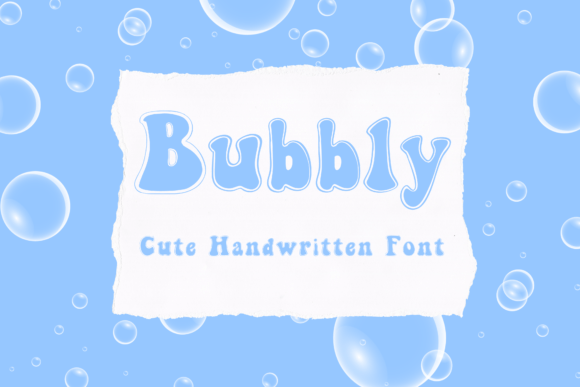
Unleash Your Creativity with Bubbly Font
There’s nothing quite like the feeling of getting lost in a creative project, surrounded by colorful pens, sticky notes, and a dash of inspiration. It’s moments like these that remind us why we love designing in the first place – the thrill of bringing a new idea to life, the satisfaction of seeing it take shape, and the joy of sharing it with others.
For those of us who love crafting unique digital experiences, Bubbly Font is a game-changer. This charming handwritten font is perfect for social media posts, digital planners, and even branding projects. Its playful, whimsical feel makes it an instant favorite among designers looking to add a touch of personality to their work.
Bubbly Font Key Features
- Font Style: Bubbly Font is a unique, hand-drawn font with a playful and whimsical feel, perfect for adding a touch of personality to designs.
- Character Set: Includes a comprehensive set of characters, including uppercase and lowercase letters, numbers, and punctuation marks, making it suitable for a wide range of applications.
- Unique Characteristics: Features distinctive, rounded shapes and soft lines that give it a friendly and approachable feel, making it ideal for children’s books, magazines, and other publications targeting a young audience.
Bubbly Font Review
First off, I love the whimsical feel of Bubbly Font. ✨ It’s perfect for designs that need a playful touch. The font’s rounded edges and bubbly shapes make it an instant attention-grabber. I’ve used it for a few projects now, and it’s always a hit with clients who want something fun and eye-catching.
One thing I appreciate about Bubbly Font is its versatility. ✨ It comes in a range of weights and styles, from light to bold, and even a script version. This makes it easy to use in a variety of contexts, from headings and titles to body text and signage.
However, I do have a few caveats. ⚠️ The font can feel a bit over-the-top at times, which might not be suitable for all designs. Additionally, the script version can be a bit difficult to read at small sizes.
Here are some specific pros and cons:
- ✨ Whimsical feel that’s perfect for playful designs
- ✨ Versatile with a range of weights and styles
- ⚠️ Can feel over-the-top in some contexts
- ⚠️ Script version can be difficult to read at small sizes
Overall, I think Bubbly Font is a great choice for designers who want to add a touch of whimsy to their projects. Just be mindful of its limitations and use it judiciously to get the best results.
Bubbly Font: A Practical Application Guide
Getting Started with Bubbly Font
Platform-Specific Tips
Use the Bubbly Font to add a playful touch to your social media graphics, blog posts, or marketing materials.
Experiment with the Bubbly Font in combination with bold colors and geometric shapes to create eye-catching designs.
Enhance your presentations and documents with the Bubbly Font’s friendly and approachable feel.
The Bubbly Font is ideal for:
- Children’s educational materials
- Playful marketing campaigns
- Wedding invitations and decor
Tips for Getting the Most Out of Bubbly Font
To maximize the effectiveness of the Bubbly Font:
- Use it sparingly to avoid overwhelming the design.
- Pair it with complementary fonts for added visual interest.
- Experiment with different font sizes and styles to create visual hierarchy.
Alternatives to Bubbly Font
Great Vibes Font is a playful and elegant script font that works well for titles, headings, and short paragraphs. It is perfect for creating a whimsical and lively atmosphere in designs. Great Vibes Font has a more refined and sophisticated look compared to Bubbly Font, which is more casual and bubbly. Use it when you want to convey a sense of fun and adventure.
Crimson Text Font is a modern and elegant serif font that works well for body text, headings, and titles. It has a more classic and timeless look compared to Bubbly Font, which is more playful and trendy. Use Crimson Text Font when you want to convey a sense of sophistication and elegance.
Can I customize the color of Bubbly Font?
Yes, Bubbly Font supports color customization. You can use the font’s built-in color palette or create custom colors using a color picker or hex code. Keep in mind that some color combinations may affect the font’s readability, so it’s essential to test different colors before finalizing your design.